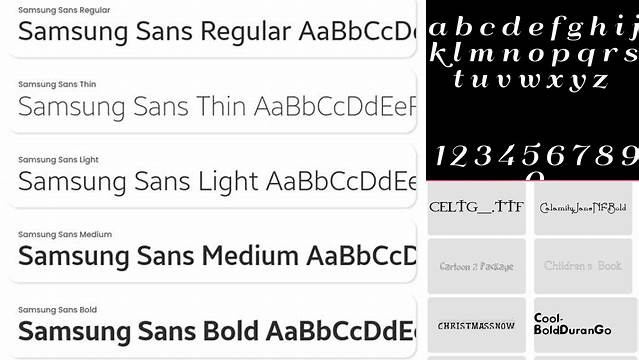
Best Free Fonts For Your Samsung Galaxy
Hey guys! Want to give your Samsung Galaxy a fresh new look? One of the easiest ways to do that is by changing the font! But who wants to pay for fonts when there are tons of awesome free fonts out there? This article is all about finding the best free fonts for your Samsung Galaxy. We'll cover everything from where to find them, how to install them, and even give you some of our top picks. Let's dive in and make your phone uniquely you!
Finding Free Fonts for Samsung Galaxy
Finding free fonts for your Samsung Galaxy doesn't have to be a chore. There are several reliable places where you can discover a wide array of options to personalize your device. One of the most straightforward methods is using the Galaxy Store, which often features free fonts alongside paid ones. You can also explore third-party app stores like the Google Play Store, where many developers offer free font packages. Websites dedicated to font distribution, such as DaFont and FontSpace, are treasure troves for unique and stylish typefaces that can be downloaded and installed on your phone. Be sure to check the compatibility and reviews before downloading to ensure a smooth and safe experience. When browsing, keep an eye out for fonts that are specifically designed or tested for Samsung devices to minimize any potential display issues. Remember, personalizing your phone with the right font can significantly enhance its aesthetic appeal and readability, making it a worthwhile endeavor.
Top Free Font Picks for Samsung Galaxy
Choosing the right free fonts for your Samsung Galaxy can significantly enhance your phone's visual appeal and readability. Among the top picks, you might consider Roboto, a classic and versatile font that comes standard on many Android devices. It offers a clean and modern look, making it suitable for a variety of applications. Another excellent option is Open Sans, known for its legibility and friendly appearance, making it ideal for reading long articles or emails. For a more unique and stylish choice, try Montserrat, a geometric sans-serif font that exudes elegance and sophistication. If you're looking for something with a bit more personality, consider Lato, which combines rounded details with a sturdy structure, offering a warm and inviting feel. Remember to check how the font looks on your device before settling on one, as some fonts may display differently on various screen sizes and resolutions. With so many great free fonts available, you're sure to find one that perfectly matches your style and needs.
Font Compatibility Issues on Samsung Galaxy
When installing free fonts on your Samsung Galaxy, it's essential to be aware of potential compatibility issues. Not all fonts are created equal, and some may not display correctly on your device due to encoding differences or software limitations. One common issue is incorrect character rendering, where certain letters or symbols appear as boxes or garbled text. Another problem can arise with fonts that are not optimized for mobile devices, leading to poor readability or distorted text sizes. To minimize these issues, always download fonts from reputable sources and check user reviews to see if others have reported compatibility problems. Samsung devices also have built-in font settings that can sometimes conflict with custom fonts, so it's a good idea to familiarize yourself with these settings. If you encounter a font that doesn't display properly, try clearing your device's cache or restarting your phone. If the problem persists, you may need to uninstall the font and choose a different one that is better suited for your device.
Changing System Fonts on Samsung Galaxy
Changing the system fonts on your Samsung Galaxy can dramatically alter the overall look and feel of your device. To do this, navigate to the Settings menu, then select "Display," followed by "Font size and style." Here, you'll find options to change the font style and size. Samsung typically offers a few pre-installed fonts to choose from, but you can also add your own by downloading free fonts from the Galaxy Store or other trusted sources. Once you've downloaded a font, it should appear in the list of available fonts in the "Font style" menu. Simply select the font you want to use, and your device will apply it to the system interface, including menus, apps, and text messages. Keep in mind that some apps may override the system font settings and use their own fonts. If you want to revert to the default font, you can easily do so by selecting the "Default" option in the "Font style" menu. Experimenting with different fonts is a fun way to personalize your device and make it truly your own.
Font Styles and Readability
When choosing free fonts for your Samsung Galaxy, it's essential to consider both style and readability. A font may look visually appealing, but if it's difficult to read, it won't be practical for everyday use. Sans-serif fonts, such as Arial and Helvetica, are generally considered to be more readable on screens than serif fonts, such as Times New Roman. This is because sans-serif fonts have cleaner lines and less ornamentation, making them easier to distinguish at smaller sizes. However, some serif fonts can also be quite readable, especially those designed specifically for digital displays. When selecting a font, pay attention to its x-height (the height of lowercase letters) and its letter spacing. Fonts with a larger x-height and wider letter spacing tend to be more readable. It's also a good idea to test the font in different lighting conditions to see how it looks in bright sunlight or low light. Ultimately, the best font for you will depend on your personal preferences and the types of content you typically consume on your device.
Using Custom Fonts in Samsung Themes
Samsung Themes allow you to customize the look of your device, and using custom fonts can enhance this personalization even further. When creating or modifying a theme, you can often specify a custom font to be used throughout the theme. This font will then be applied to various elements of the user interface, such as menus, icons, and text labels. To use custom fonts in Samsung Themes, you'll first need to download the fonts you want to use from a trusted source. Then, you can import the fonts into the Theme Editor app and apply them to your theme. Keep in mind that not all fonts are compatible with Samsung Themes, so you may need to experiment to find fonts that work well. It's also important to ensure that the fonts you use are legible and visually appealing. Using custom fonts in Samsung Themes is a great way to create a unique and personalized look for your device, making it stand out from the crowd.
Free Fonts for Samsung Galaxy: A Comprehensive Guide
Finding the perfect free fonts for your Samsung Galaxy doesn't have to be a daunting task. This comprehensive guide aims to provide you with all the information you need to personalize your device with stylish and readable typefaces. We'll cover everything from where to find free fonts, how to install them, and which fonts are best suited for different purposes. We'll also address common compatibility issues and provide tips for ensuring a smooth and enjoyable experience. Whether you're looking for a font that is clean and modern, or one that is more decorative and expressive, this guide will help you find the perfect free fonts to match your style and needs. So, let's dive in and explore the wonderful world of free fonts for your Samsung Galaxy!
Choosing the Right Font Size
Choosing the right font size on your Samsung Galaxy is crucial for ensuring optimal readability and reducing eye strain. A font that is too small can be difficult to read, especially for those with vision impairments, while a font that is too large can make text appear cluttered and overwhelming. To adjust the font size on your Samsung Galaxy, navigate to the Settings menu, then select "Display," followed by "Font size and style." Here, you'll find a slider that allows you to increase or decrease the font size to your liking. It's a good idea to experiment with different font sizes to find one that is comfortable for you to read. Consider the size of your device's screen and the distance at which you typically hold it when making your decision. You may also want to adjust the font size in individual apps, as some apps allow you to override the system font settings.
Best Free Fonts for Business Use
If you're using your Samsung Galaxy for business purposes, it's important to choose free fonts that convey professionalism and credibility. Avoid fonts that are overly decorative or playful, as these can undermine your message and make you appear less serious. Instead, opt for clean and simple sans-serif fonts, such as Arial, Helvetica, or Open Sans. These fonts are widely recognized and considered to be highly readable, making them ideal for emails, presentations, and other business documents. When selecting a font for business use, consider the overall tone and style of your brand. Choose a font that reflects your company's values and personality. It's also a good idea to use the same font consistently across all of your business materials to create a cohesive and professional image.
Free Fonts for Students
For students using their Samsung Galaxy for studying and note-taking, selecting the right free fonts can significantly enhance their learning experience. Readability is key, so opt for fonts that are clear and easy on the eyes, even after long periods of reading. Some excellent choices include Open Sans, Lato, and Roboto. These fonts are known for their legibility and friendly appearance, making them ideal for reading textbooks, research papers, and online articles. Avoid fonts that are too stylized or decorative, as these can be distracting and make it harder to focus on the material. Additionally, consider the font size and line spacing to ensure comfortable reading. Experiment with different settings to find what works best for you and your device.
Pairing Fonts for a Unique Look
Pairing fonts effectively can give your Samsung Galaxy a unique and stylish look. The key is to choose fonts that complement each other without clashing. A common approach is to pair a sans-serif font with a serif font, using the sans-serif font for headings and the serif font for body text. This creates a visual hierarchy that makes your content easier to read. For example, you could pair Open Sans (sans-serif) with Merriweather (serif). Another approach is to pair two different weights or styles of the same font family. For example, you could use Roboto Bold for headings and Roboto Regular for body text. When pairing fonts, pay attention to their x-heights, letter spacing, and overall tone. Choose fonts that have similar characteristics and create a cohesive and harmonious look. Experiment with different combinations to find what works best for you and your device.
Free Fonts for Graphic Design
If you're using your Samsung Galaxy for graphic design, having a collection of high-quality free fonts is essential. Look for fonts that are versatile and can be used in a variety of design projects, such as logos, posters, and social media graphics. Some excellent choices include Montserrat, Raleway, and Bebas Neue. These fonts are known for their clean lines, modern aesthetic, and wide range of weights and styles. When selecting fonts for graphic design, consider the overall message and style of your design. Choose fonts that complement your design and help to convey your message effectively. It's also important to ensure that the fonts you use are licensed for commercial use, especially if you're creating designs for clients.
Monospace Fonts for Coding
For those using their Samsung Galaxy for coding or programming, monospace fonts are a must-have. Monospace fonts are characterized by having each character occupy the same amount of horizontal space, which makes code easier to read and debug. Some popular free monospace fonts include Consolas, Source Code Pro, and Fira Code. These fonts are designed specifically for coding and feature clear and distinct characters that are easy to differentiate. When selecting a monospace font for coding, look for fonts that have good readability and minimal ambiguity between characters. It's also important to choose a font that is comfortable to read for extended periods of time, as coding can often involve staring at a screen for hours on end.
Retro and Vintage Free Fonts
Adding a touch of nostalgia to your Samsung Galaxy is easy with retro and vintage free fonts. These fonts evoke the charm of past eras, from the Art Deco elegance of the 1920s to the groovy vibes of the 1970s. Some popular choices include Bebas Neue, a tall and condensed sans-serif that's perfect for headlines; Pacifico, a script font that mimics the look of 1950s signage; and Lobster, a bold and quirky display font. When using retro fonts, consider the overall design and theme of your project. These fonts work well for posters, logos, and social media graphics that aim to create a vintage or nostalgic feel. Be mindful of readability, as some retro fonts can be more challenging to read than modern fonts.
Decorative and Script Fonts
For adding flair and personality to your Samsung Galaxy, decorative and script free fonts are excellent choices. These fonts are ideal for creating eye-catching headings, logos, and social media graphics. Decorative fonts come in a wide variety of styles, from whimsical and playful to bold and edgy. Script fonts mimic the look of handwriting and can add a touch of elegance or informality to your designs. Some popular options include Brush Script MT, a classic and flowing script font; Harrington, a formal and ornate decorative font; and Comic Sans MS, a controversial but often-used playful font. When using decorative and script fonts, be sure to use them sparingly and pair them with more readable fonts for body text. Overusing these fonts can make your design look cluttered and difficult to read.
Using Font Apps on Samsung Galaxy
One of the easiest ways to manage and install free fonts on your Samsung Galaxy is by using font apps. These apps provide a convenient way to browse, download, and apply fonts to your device. Some popular font apps include HiFont, iFont, and FontFix. These apps offer a wide selection of free fonts to choose from, as well as tools for previewing fonts and managing your installed fonts. When using font apps, it's important to download them from reputable sources, such as the Google Play Store, to avoid malware or other security risks. Before installing a font from a font app, be sure to preview it to ensure that it looks good on your device. Some font apps may require root access to your device, so be sure to understand the risks involved before granting root access.
Rooting Your Device for More Font Options
Rooting your Samsung Galaxy can open up a wider range of font customization options, but it also comes with risks. Rooting gives you access to the root directory of your device's operating system, allowing you to modify system files and settings that are normally restricted. With root access, you can install custom fonts that are not available through the Galaxy Store or font apps. However, rooting your device can void your warranty and may make your device more vulnerable to malware and security threats. If you're considering rooting your device, be sure to do your research and understand the risks involved. It's also important to back up your device before rooting, as the process can sometimes go wrong and result in data loss. If you're not comfortable with the technical aspects of rooting, it's best to avoid it.
Free Fonts for Accessibility
Ensuring accessibility is crucial when choosing free fonts for your Samsung Galaxy, especially for users with visual impairments. Select fonts that are highly readable and easy to distinguish, even at smaller sizes. Some excellent choices include Open Sans, Arial, and Roboto. These fonts are known for their clean lines and simple design, making them ideal for users with low vision or dyslexia. Additionally, consider adjusting the font size and line spacing to improve readability. Avoid fonts that are overly stylized or decorative, as these can be difficult to read for users with visual impairments. Some devices also offer built-in accessibility features, such as font scaling and high-contrast mode, which can further enhance readability.
Maintaining Font Consistency Across Apps
Maintaining font consistency across apps on your Samsung Galaxy can create a more cohesive and visually appealing user experience. However, achieving this can be challenging, as some apps may override the system font settings and use their own fonts. To maintain font consistency, try to use apps that respect the system font settings. You can also use font apps or custom ROMs to force all apps to use the same font. However, this may not always work, as some apps are designed to use specific fonts. If you're a developer, you can ensure font consistency in your apps by using the system font as the default font and providing users with options to adjust the font size and style.
Updating Your Samsung Galaxy for Font Support
Keeping your Samsung Galaxy updated with the latest software is essential for ensuring optimal font support. Software updates often include improvements to the font rendering engine, as well as support for new font formats and features. To check for software updates on your Samsung Galaxy, go to the Settings menu, then select "Software update," followed by "Download and install." If an update is available, be sure to download and install it. Before updating your device, it's a good idea to back up your data, as software updates can sometimes cause data loss. It's also important to ensure that your device has enough battery life before starting the update process. By keeping your device up-to-date, you can ensure that you have the best possible font support and a smooth and enjoyable user experience.
Troubleshooting Font Issues on Samsung Galaxy
Even with the best fonts and software, you may occasionally encounter font issues on your Samsung Galaxy. Common problems include fonts not displaying correctly, fonts appearing too small or too large, and fonts conflicting with app interfaces. To troubleshoot font issues, start by clearing your device's cache and restarting your phone. If the problem persists, try uninstalling and reinstalling the font. You can also try adjusting the font size and style in the Settings menu. If you're using a font app, make sure that it's up-to-date and that it's compatible with your device. If you're still having trouble, try searching online for solutions or contacting Samsung support. With a little troubleshooting, you can usually resolve most font issues and get your device looking its best.
Free Fonts and Copyright Considerations
When using free fonts on your Samsung Galaxy, it's important to be aware of copyright considerations. While free fonts are often available for personal use, they may not be licensed for commercial use. This means that you may not be able to use them in logos, marketing materials, or other commercial projects without obtaining a license. Before using a free font, be sure to check its license agreement to understand the terms of use. Some fonts may be released under open-source licenses, such as the SIL Open Font License, which allows for both personal and commercial use. However, other fonts may have more restrictive licenses. If you're unsure about the licensing terms, it's best to contact the font designer or distributor for clarification. By being mindful of copyright considerations, you can avoid potential legal issues and ensure that you're using free fonts responsibly.
Future Trends in Mobile Typography
The world of mobile typography is constantly evolving, with new trends and technologies emerging all the time. Some future trends in mobile typography include variable fonts, which allow for greater flexibility and customization; responsive fonts, which adapt to different screen sizes and resolutions; and augmented reality fonts, which can be used to create immersive and interactive experiences. As mobile devices become more powerful and sophisticated, we can expect to see even more innovation in mobile typography. Designers will have more tools and techniques at their disposal for creating beautiful and engaging user interfaces. And users will have more options for personalizing their devices and expressing their individuality through typography. The future of mobile typography is bright, and it's exciting to imagine what's to come.